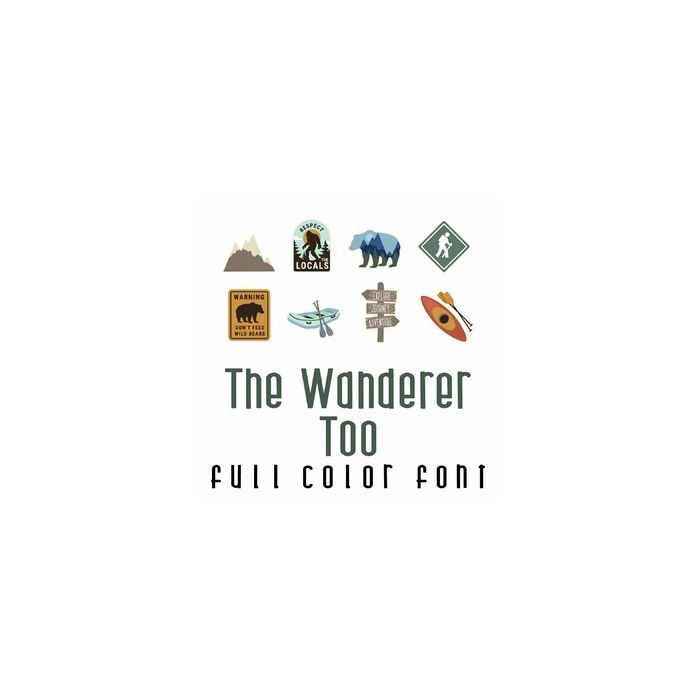
The Wanderer Too Full Color Font
A full-color font stores svg data inside an Open Type font file. This font will look black if not used in a program like Silhouette Studio which is compatible. Images can be pulled apart with some vector programs like Illustrator and cut with your cutting machine. This adorable full-color doodlebat font features 26 outdoorsy sticker-style images perfect for crafts, gifts, planner stickers, decor, cards, scrapbook pages and more!